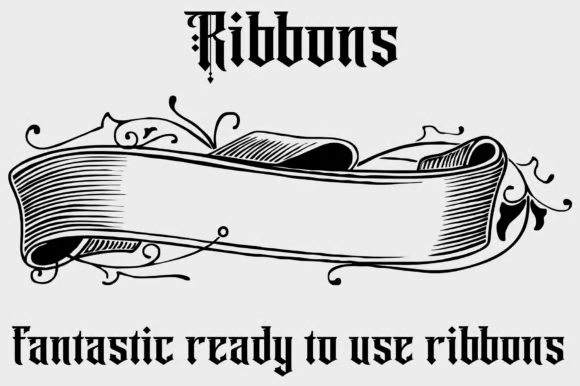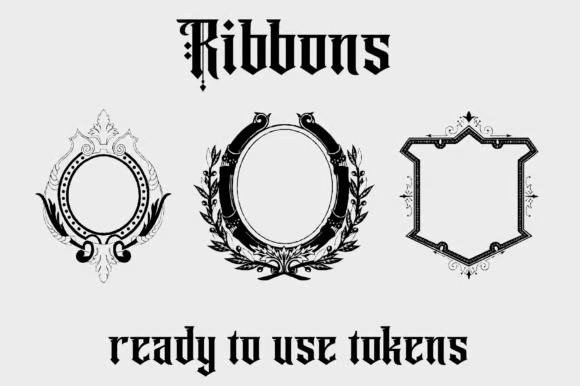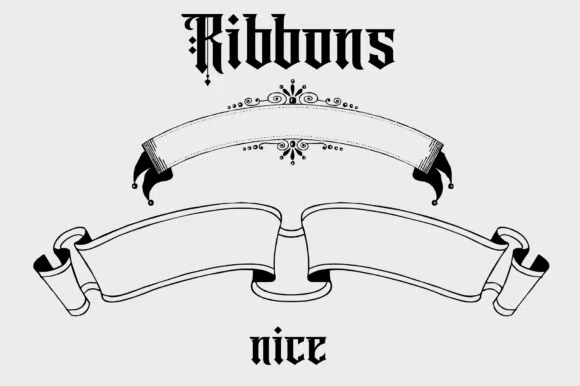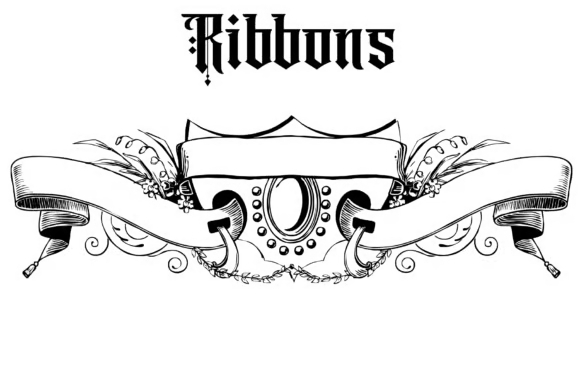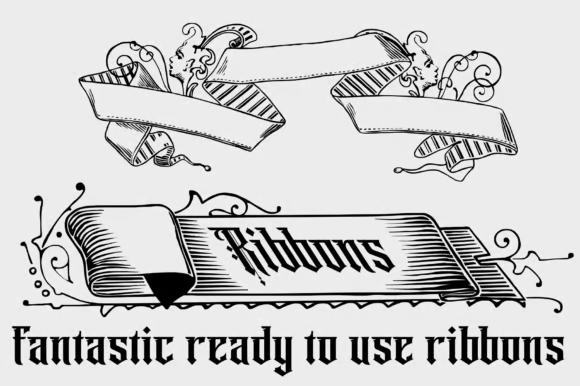
Ribbons
Designed by Paulo W, Ribbons is a dingbat font family published by Intellecta Design.
Ribbons is a fun dingbats font that adds decorative flair to your designs. Featuring charming ribbon-inspired elements, each character becomes a whimsical adornment. Ideal for projects seeking playful and decorative details, Ribbons injects a delightful and creative touch, making your designs festive and visually captivating.